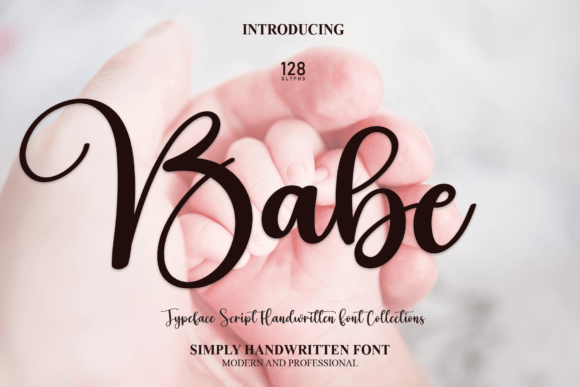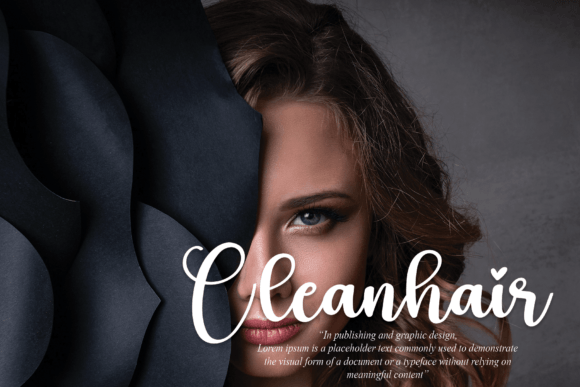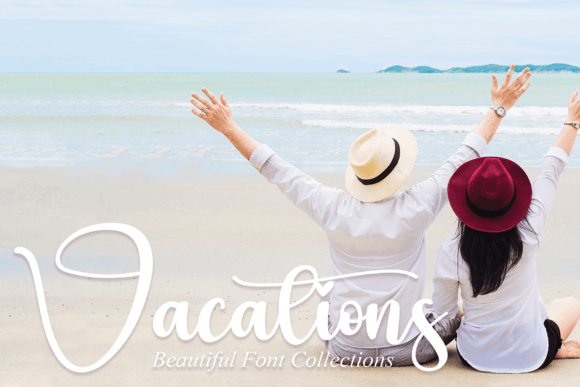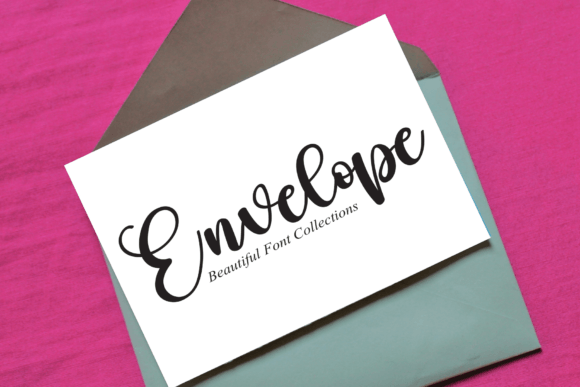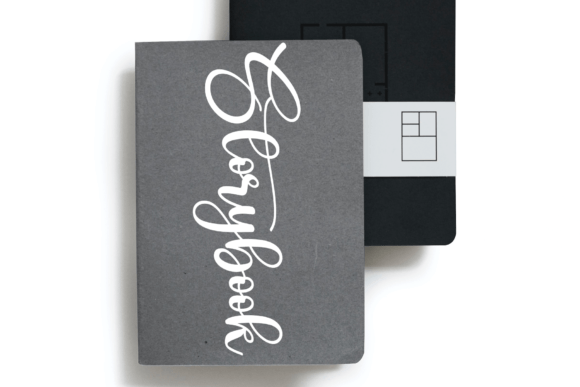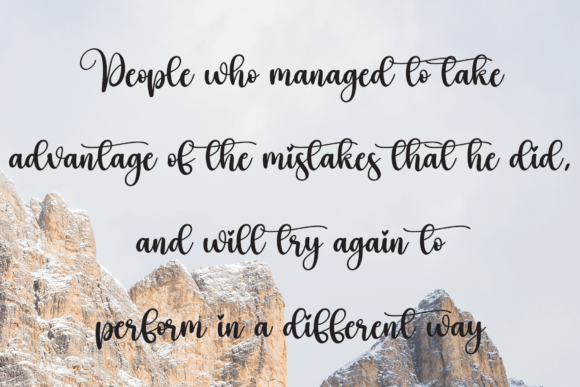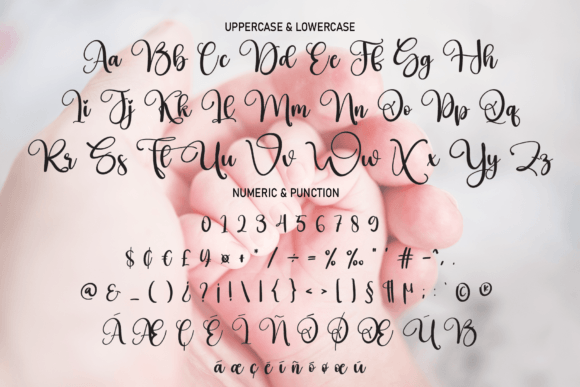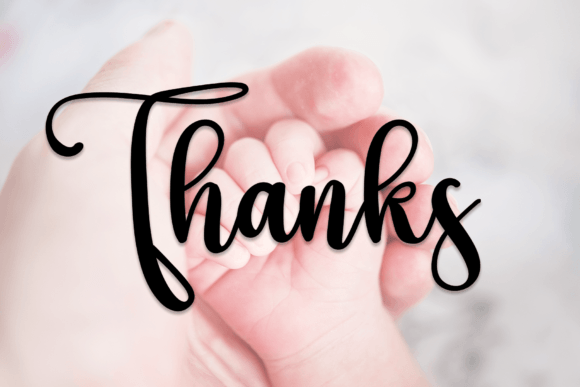
Babe Font
About Babe Font
Introducing Babe, a sweet and cursive handwritten font designed to bring a gentle and romantic touch to your design ideas. This font radiates a joyful and elegant vibe, making it a perfect fit for a variety of creative projects. Whether you’re working on branding, logos, wedding materials, greeting cards, fashion, lookbooks, or marketing promotions, Babe adds a fancy and casual elegance to your designs.
The cursive and handwritten style of Babe imparts a sense of warmth and personal touch to your text. The gentle curves and flowing strokes create an elegant appearance, making it suitable for a wide range of design applications.
Imagine using Babe for wedding invitations where its romantic and cursive font enhances the overall elegance of the event. In branding or logos, this font adds a touch of sophistication, making your brand or business look fancy yet approachable.
For fashion-related projects, lookbooks, or marketing promotions, Babe’s elegant and casual style shines, making your designs stand out with a sense of grace. The font is versatile, adapting seamlessly to different contexts and design needs.
Whether you’re creating digital or print materials, Babe is ready to be the sweet and cursive font that elevates the visual appeal of your projects. Its ability to strike a balance between fancy elegance and casual charm makes it a valuable asset for various creative endeavors.
In conclusion, Babe is more than just a font; it’s a design tool that invites you to infuse your projects with a sweet and romantic touch. Whether you’re working on branding, wedding invitations, or fashion-related designs, Babe is prepared to be the cursive and elegant font that enhances the overall beauty of your creative work.